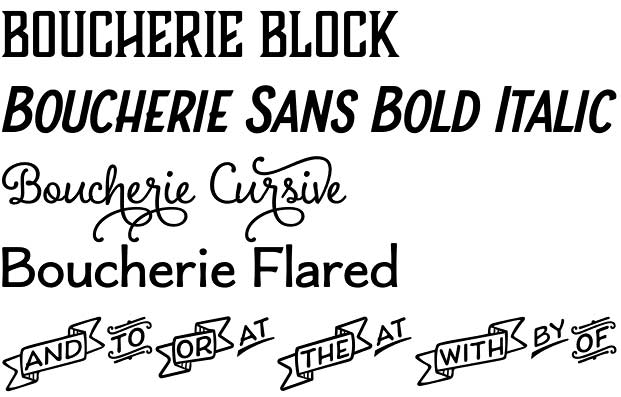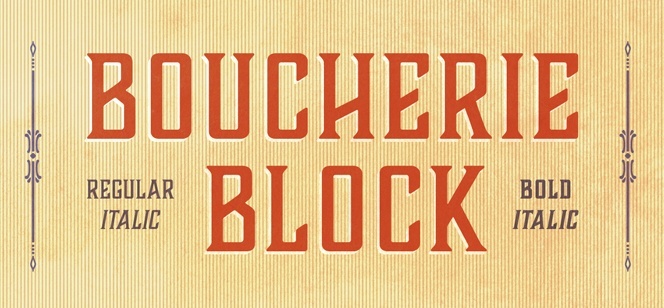
Boucherie font
Boucherie font family by Laura Worthington is a charming retro typeface, the smooth sister of the notorious Charcuterie font. Both Boucherie and Charcuterie root their inspiration in the 19th-century French lettering and advertising typography, with Boucherie replacing the Charcuterie’s rustic, slightly rough, personally crafted edges with neat, delicately refined strokes. The Boucherie typeface is a fertile ground for your creativity and a versatile tool for your distinguished and personal graphic designs.
Boucherie font family consists of 16 members grouped in four distinct display types: Block (Regular, Italic, Bold, & Bold Italic), Sans (Regular, Italic, Bold, Bold Italic, & Inline), Cursive (Regular & Bold), and Flared (Regular & Bold), plus three ornamental sets: Ornaments, Catchwords, and Frames.
Boucherie Block font draws the attention with its heavy wedge serifs and slanted crossbars & terminals. Make it a large and spectacular caption. Boucherie Sans font is a clean all-caps, slightly condensed and pleasantly rounded. Perfect for subheadings. Boucherie Cursive font is artistic, monoline script. Crafted penmanship four a composition counterpoints. Boucherie Flared font just like Boucherie Sans features nice equilibrium between letterpress and handwritten. Equally suitable for headlines and text blocks.
Boucherie Ornaments, Boucherie Catchwords, and Boucherie Frames offer a whole bunch of pictograms, arrows, ribbons, catchwords, borders, cartouches, etc. – all the bells and whistles you need to add the final touches to your vivid, fascinating, unmatchable Boucherie-made picture.